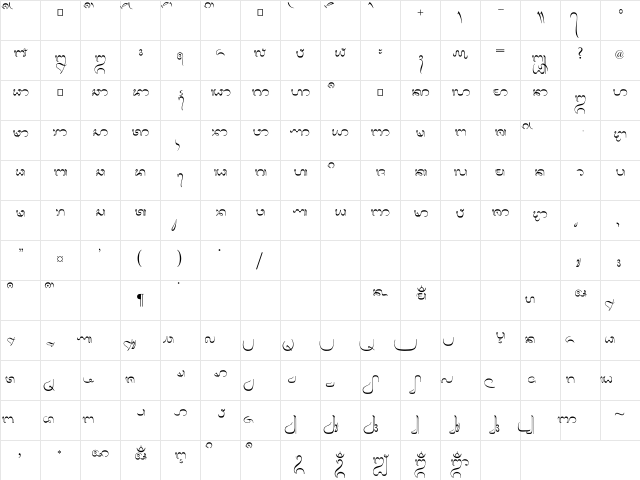
Bali Simbar Regular
Design Context for Bali Simbar Typeface
Bali Simbar offers clean, dependable letterforms without strong stylistic allegiance, making it a practical choice for designers who need flexibility.